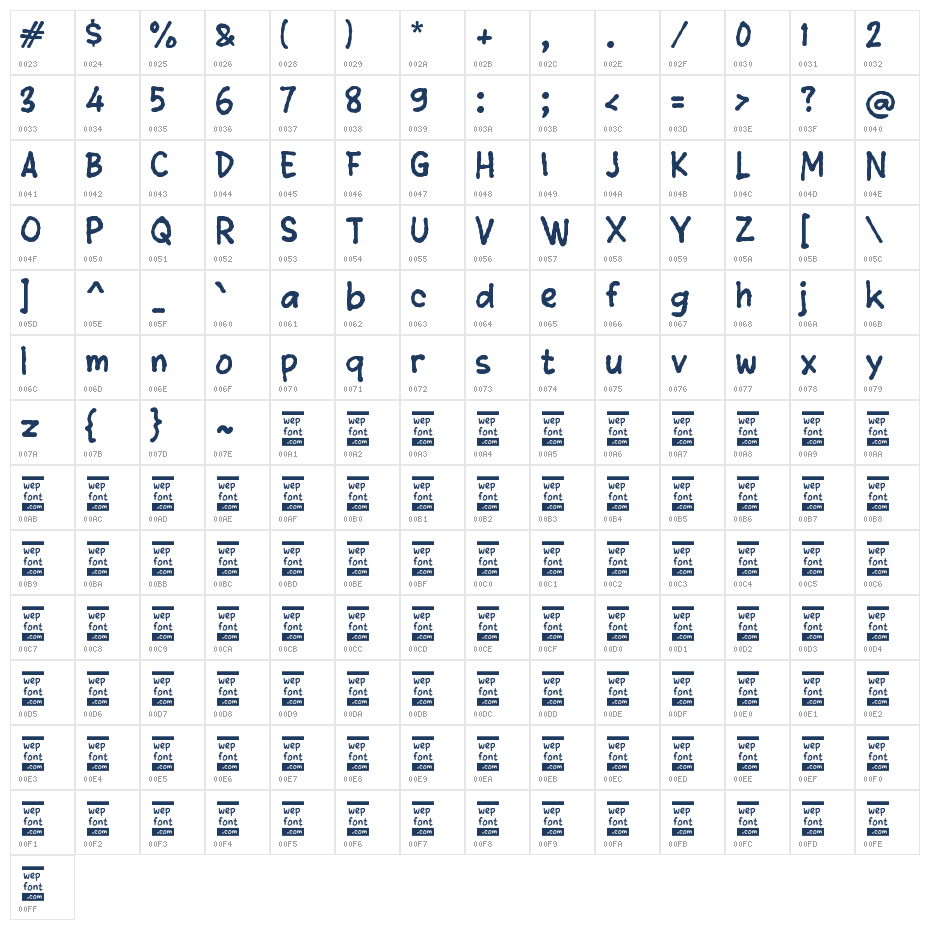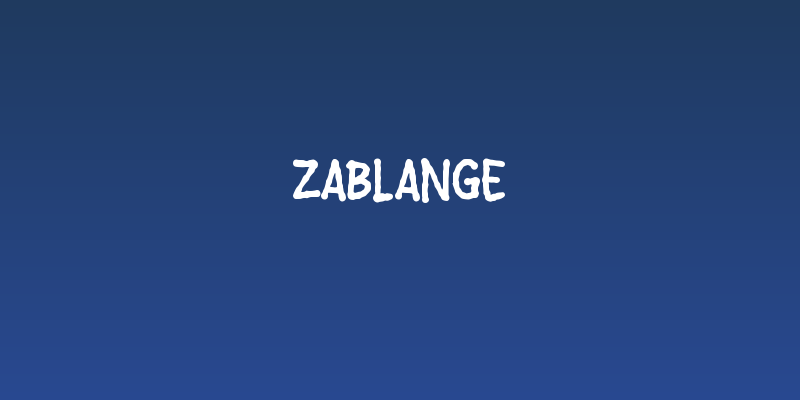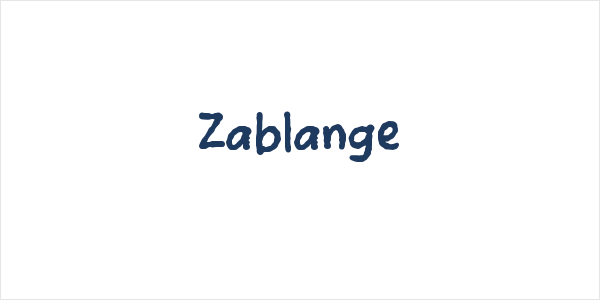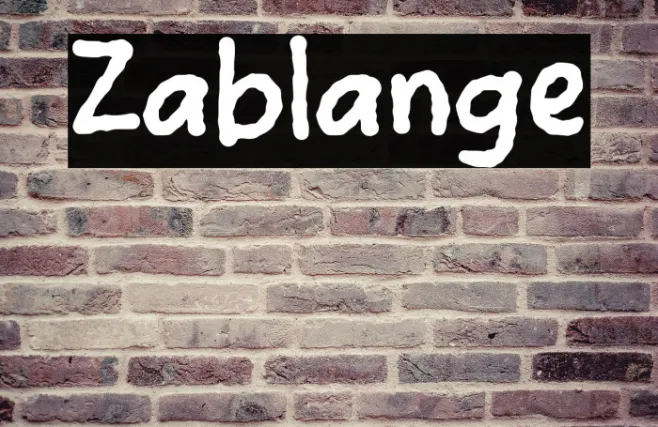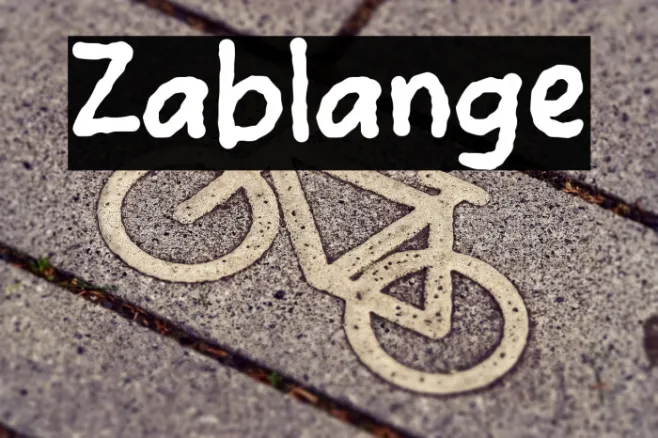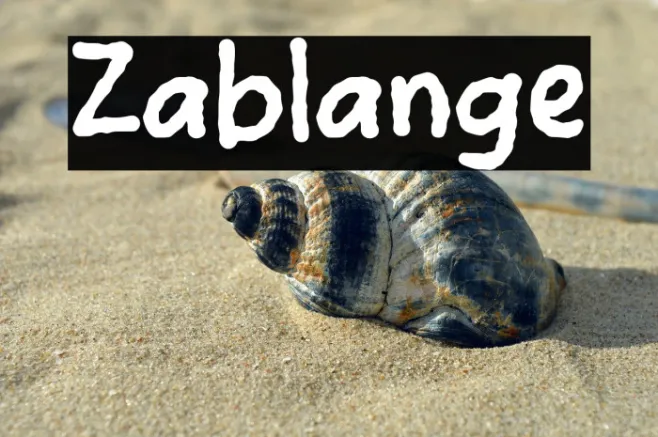
Zablange Font
Zablange Description
A playful, handwritten style font with a casual, informal appearance. The characters have a slightly irregular, brush-like texture, giving it a friendly and approachable feel.